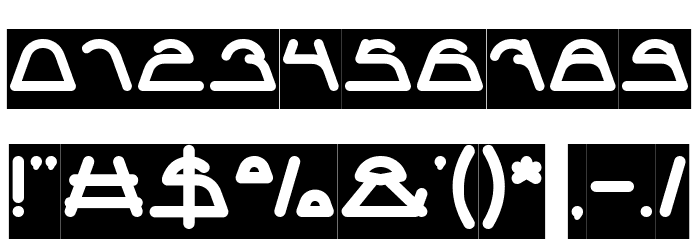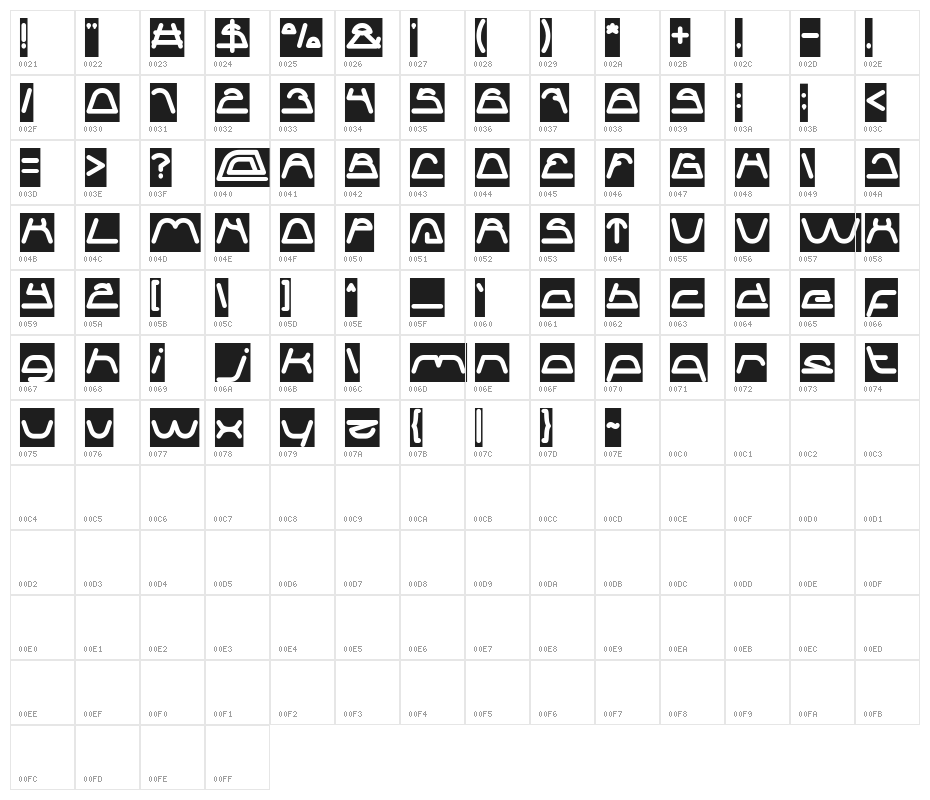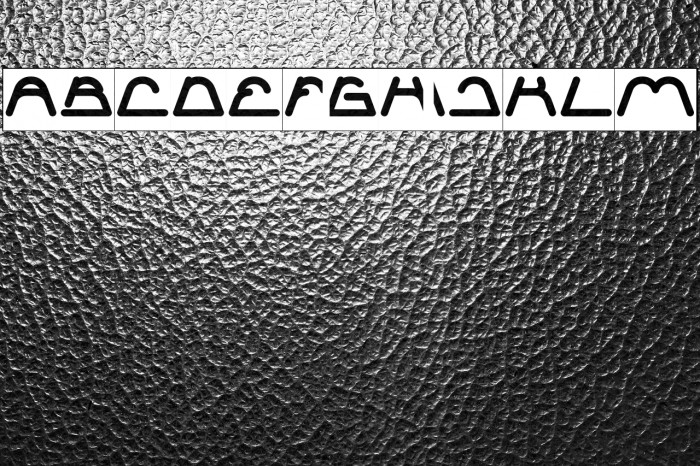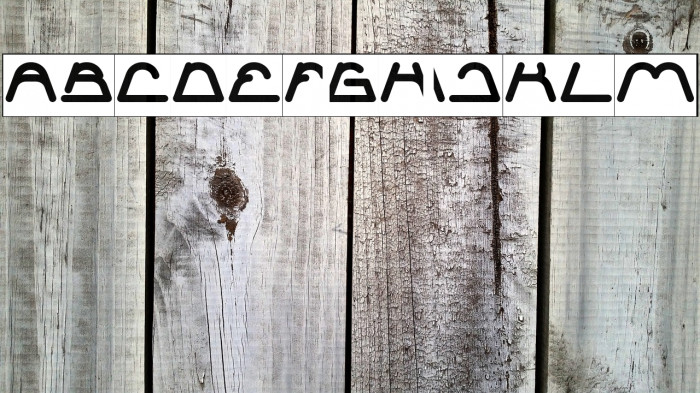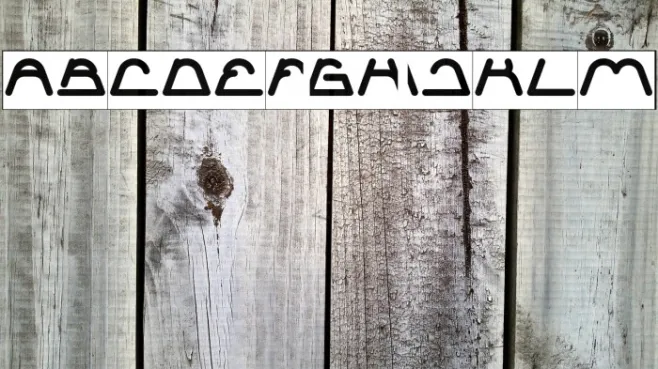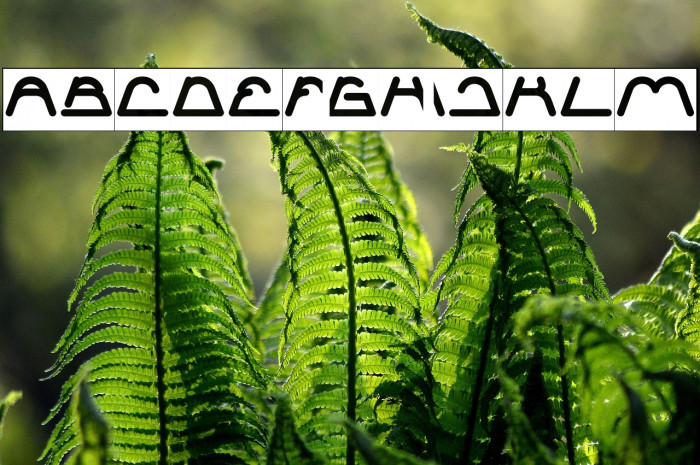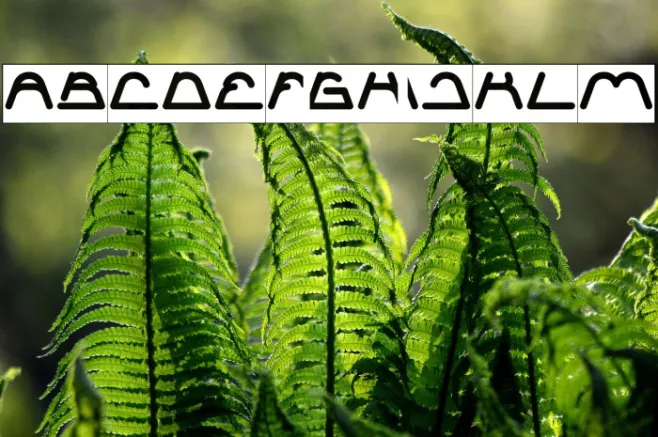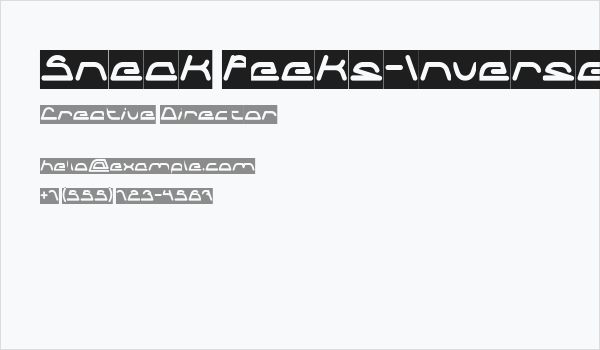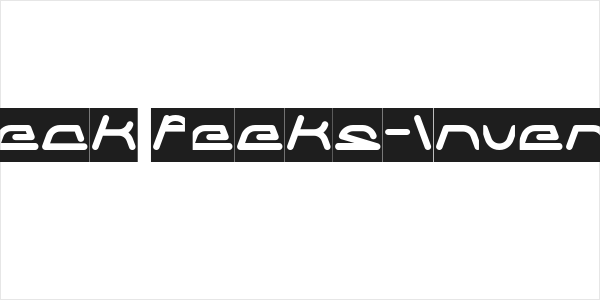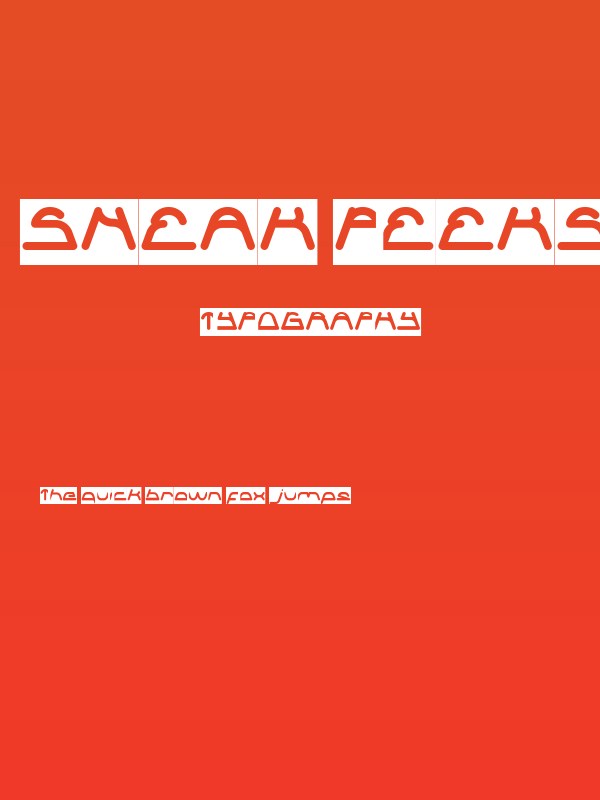
Sneak Peeks-Inverse Font
Sneak Peeks-Inverse Description
This font features a futuristic and geometric design with a unique blend of curves and angles. The characters are crafted with a consistent stroke width, giving it a uniform appearance. The uppercase and lowercase letters maintain a similar style, with the lowercase being slightly more compact. Numbers and special characters follow the same design principles, ensuring a cohesive look across all glyphs. The font's distinct style makes it stand out, with each character having a bold presence. The overall design is clean and modern, making it suitable for a variety of creative applications.